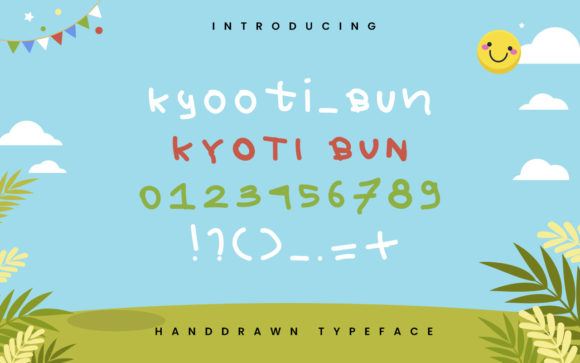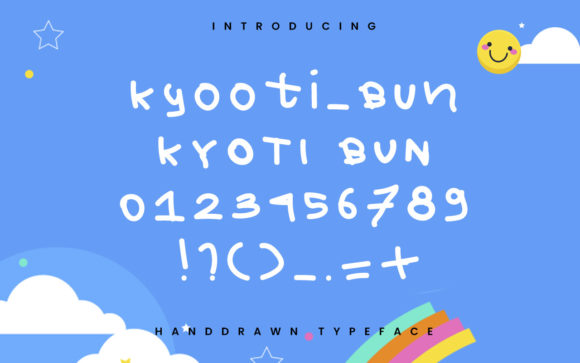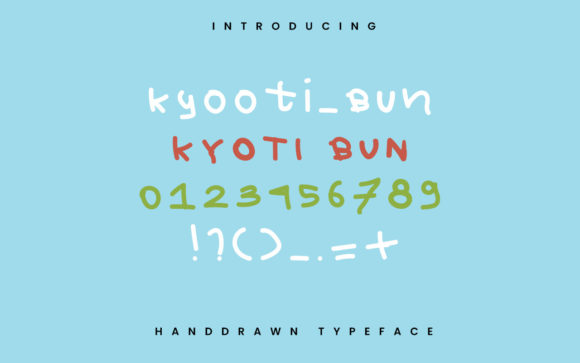
Kyooti-Bun Font
Kyooti-Bun Font Poster 1
About Kyooti-Bun Font
Introducing Kyooti-Bun, a cute handwritten font that adds a playful and whimsical touch to your designs. With its authentic look and feel, this font is perfect for creating chalkboard quotes, teaching materials, and any design that needs a personal and realistic touch.
Kyooti-Bun captures the essence of hand-drawn lettering with its charming and imperfect strokes. The uneven lines and quirky details give it a unique and lovable character. Each letter has a playful bounce, adding a sense of liveliness to your designs.
This font is designed to evoke a sense of nostalgia and simplicity, making it a great choice for educational materials, children’s projects, and any design that aims to create a warm and welcoming atmosphere.
Whether you’re creating classroom materials, chalkboard quotes, or fun illustrations, Kyooti-Bun will bring a touch of joy and creativity to your designs. Its versatility allows you to use it in various design applications, from digital projects to print materials.
Kyooti-Bun is not just a font, but a tool that sparks creativity and adds a personal touch to your designs. Its handmade appearance creates a sense of connection and authenticity, making your audience feel more engaged and connected to your message.
So, embrace the playful and whimsical nature of Kyooti-Bun and let it bring a dose of cuteness and authenticity to your chalkboard quotes, teaching materials, and various design projects. Get ready to captivate your audience with its charm and create designs that are truly memorable.